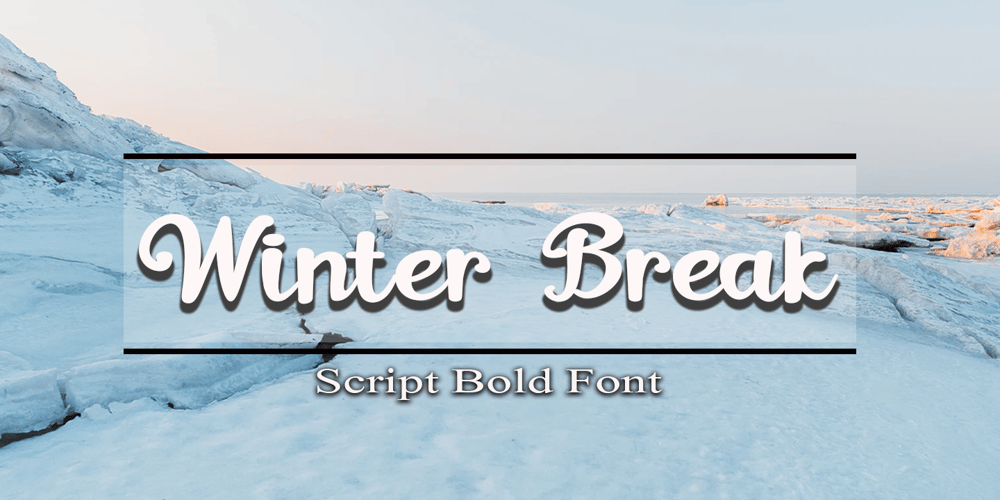
Winter Break Font Family was designed by Arief Tri Sulistiyono and published by Supersemarletter. Winter Break contains 1 styles and family package options. Winter Break is a sweet and flowing handwritten font. It looks stunning on wedding invitations, thank you cards, quotes, greeting cards, logos, business cards and every other design which needs a handwritten touch. Honestly it works perfectly for headlines, logos, posters, packaging, T-shirts and much more.Font Features :• Regular version• Character set A-Z in uppercase and lowercase• Numerals & Punctuation• Accented Characters• Multiple Languages SupportedRecommended to use in Adobe Illustrator or Adobe Photoshop with opentype feature.If you have questions, just send me a message and I’m glad to help.